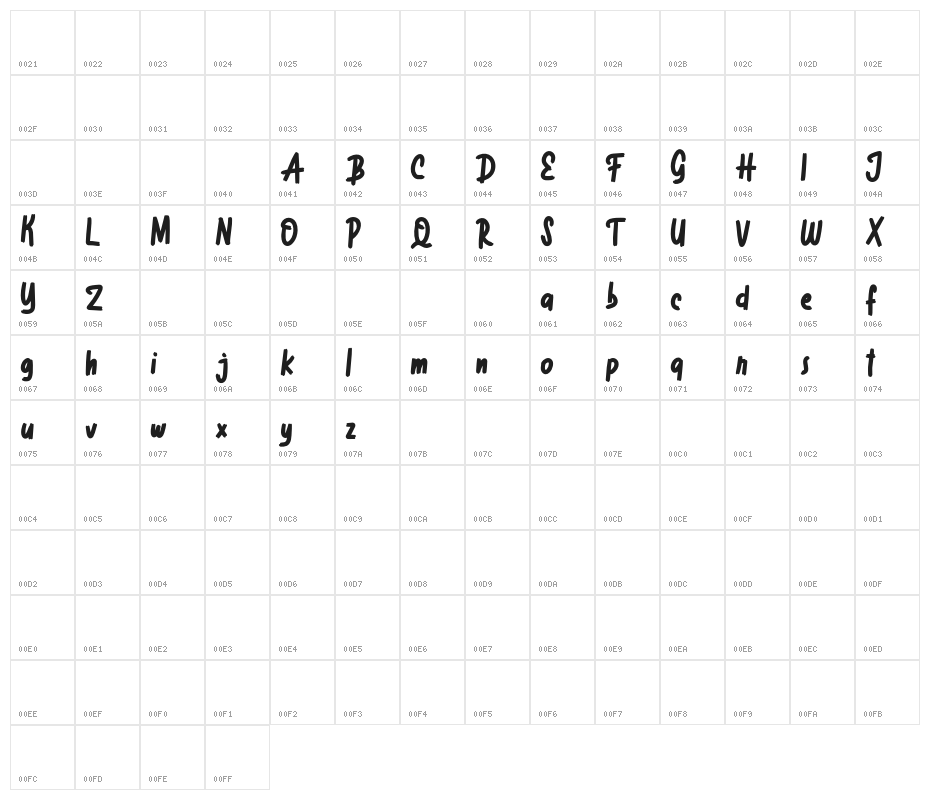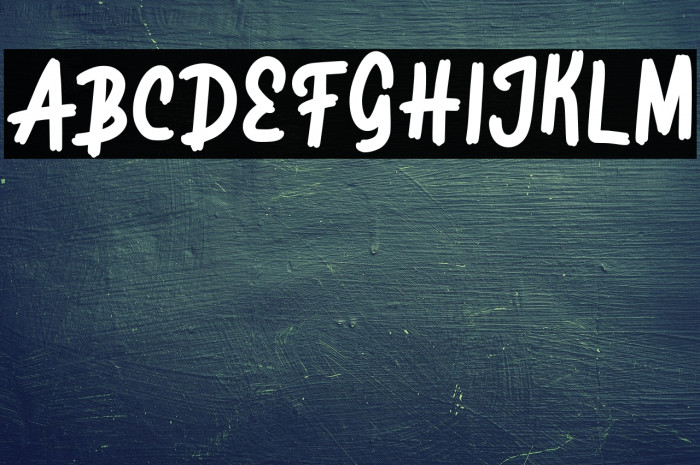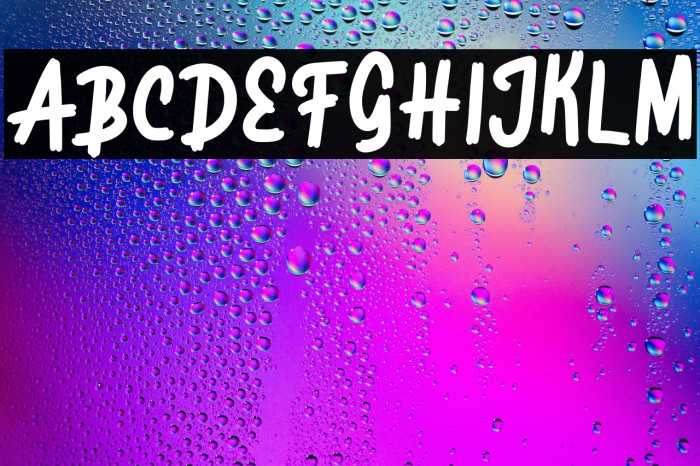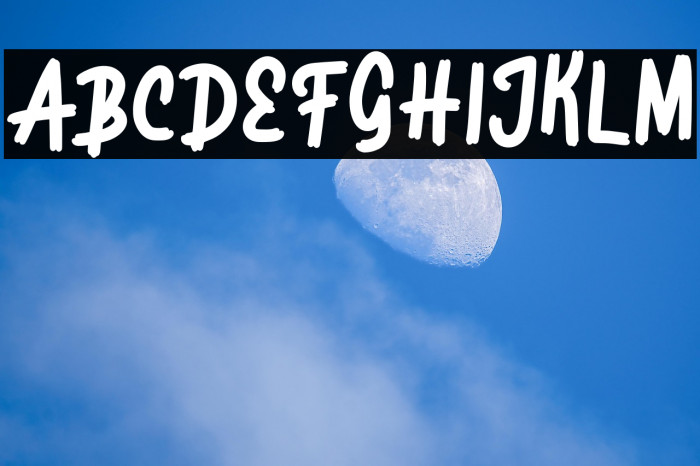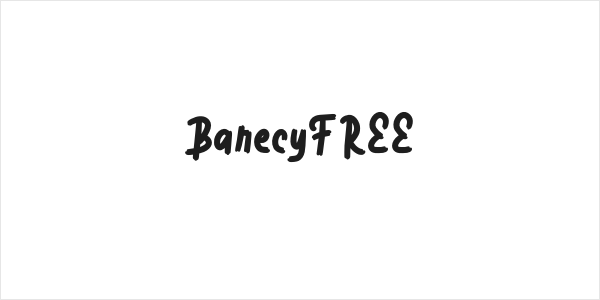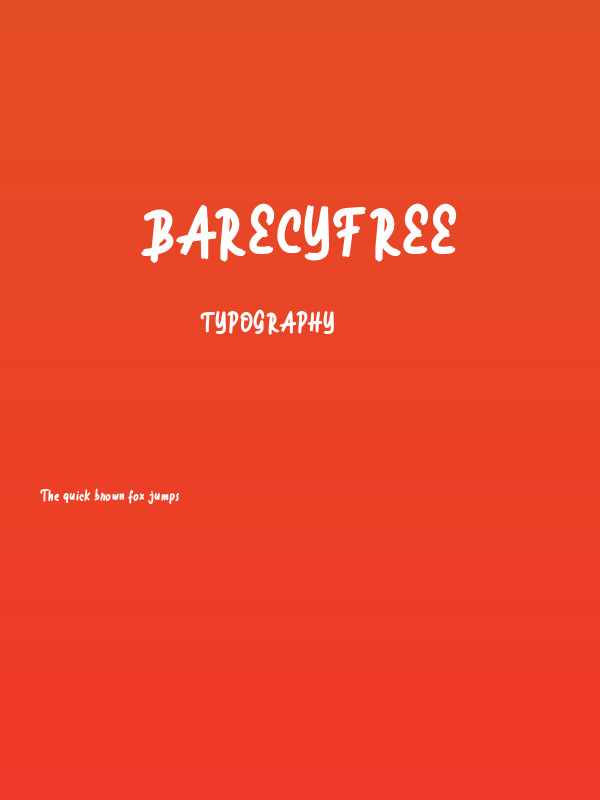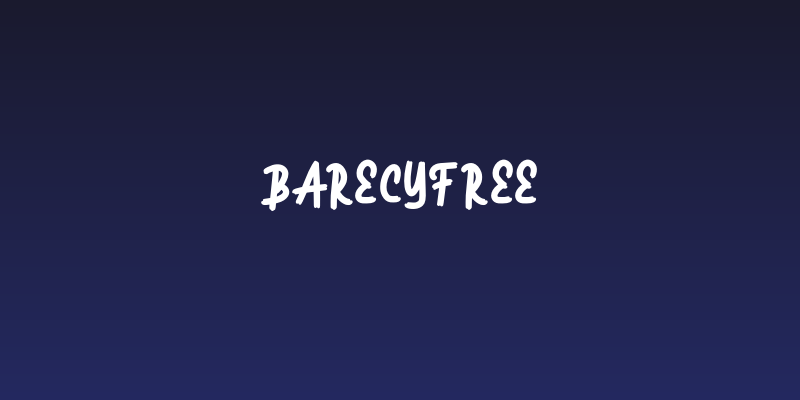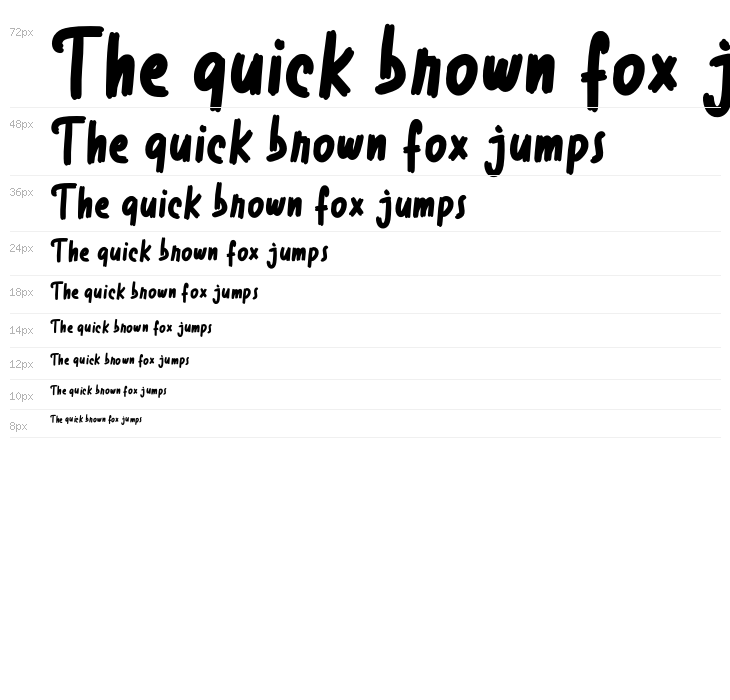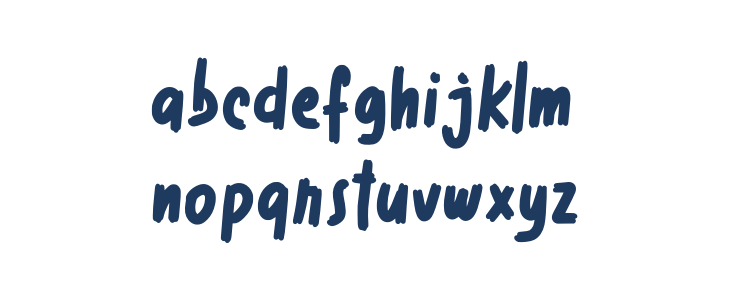
BarecyFREE Font
BarecyFREE Description
This font features a bold and playful handwritten style, characterized by its thick strokes and slightly irregular shapes that give it a casual and friendly appearance. The uppercase letters are bold and dynamic, with a slight slant that adds movement and energy. The lowercase letters maintain the same playful quality, with rounded edges and a consistent stroke width that enhances readability. The numbers and special characters are designed to match the overall style, ensuring a cohesive look across all text. This font is ideal for projects that require a personal touch, such as invitations, greeting cards, or branding materials that aim to convey warmth and approachability.
| Overall Style | Playful, Casual |
| Proposed Projects | Ideal for invitations, greeting cards, playful branding, and casual posters. |